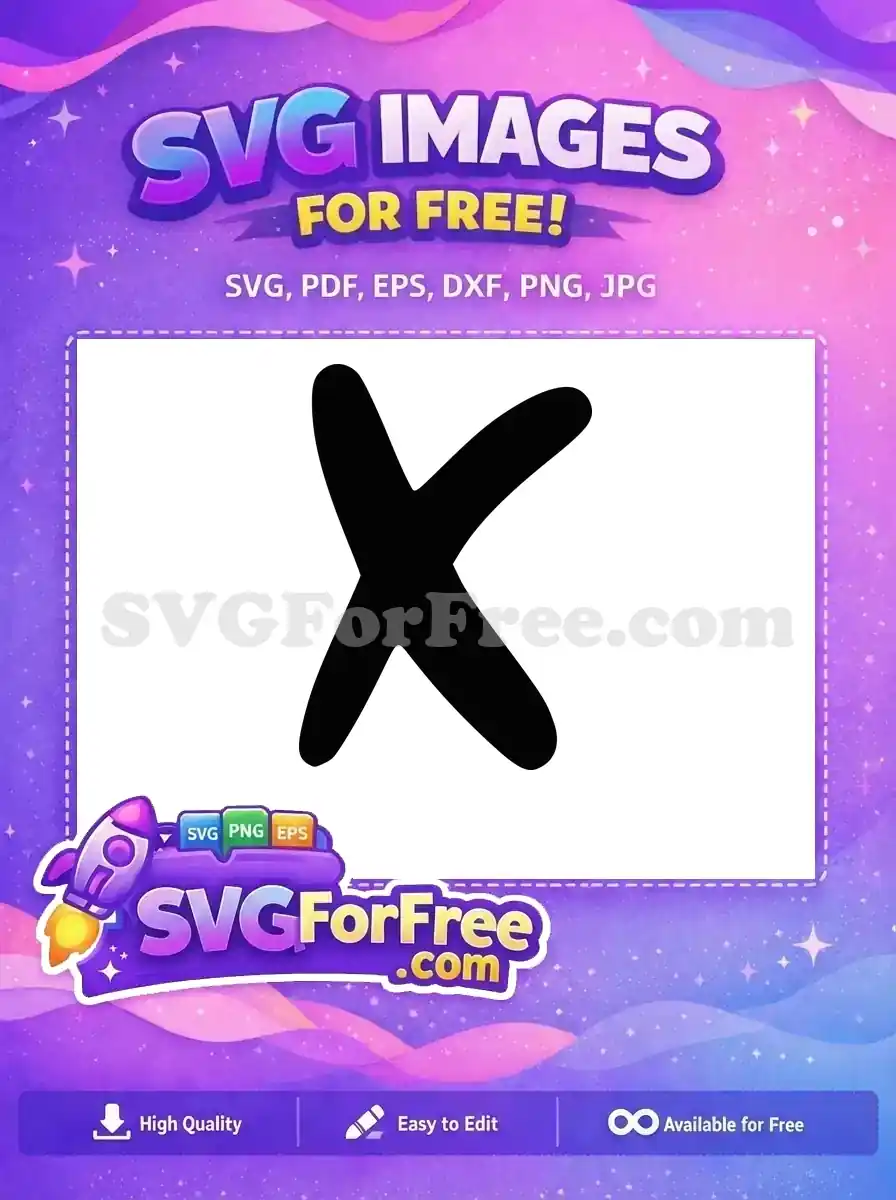
Free Minnie Font Letter X Free Handwritten Black Alphabet Minnie Mouse Free SVG – Instant Download
Thick and fluid black uppercase ‘X’ script, free vector art.
Free Minnie Font Letter X Free Handwritten Black Alphabet Minnie Mouse Free SVG